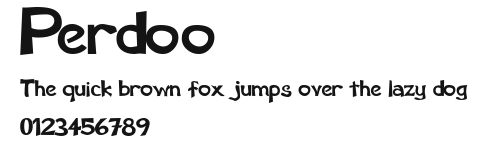
• Font Name: Perdoo
• Full Font Name: Perdoo Bold
Perdoo.ttf is a modern, elegant sans-serif font designed for ultimate readability and visual harmony. Perfect for branding, headlines, web design, and print materials.